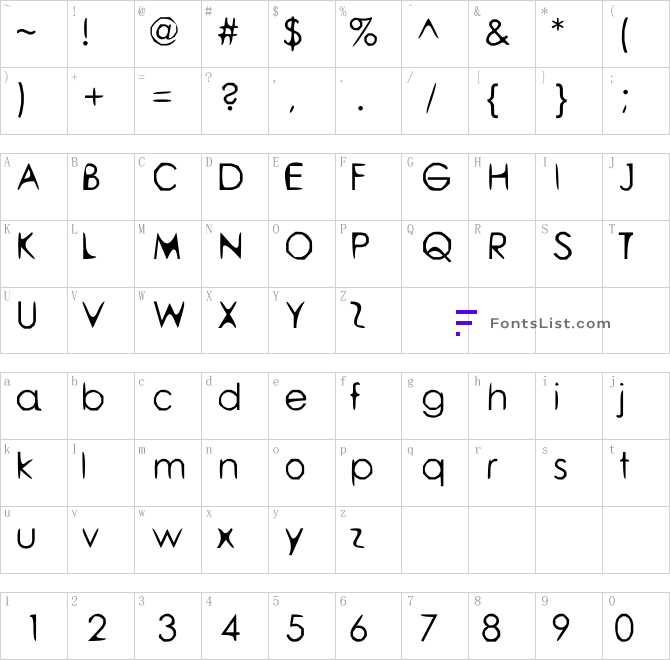
- Font Name:BDP GeLLY NameScript
BDP-GeLLY-NameScript.ttf is a very beautiful artistic font, BDP-GeLLY-NameScript.ttf is widely used in the design and printing of various books and pictures,BDP-GeLLY-NameScript.ttf has a strong visual impact,BDP-GeLLY-NameScript.ttf is a commonly used font in newspapers, magazines and books, and is used in posters, e-commerce Poster design, store design, logo design, font design and other fields.BDP-GeLLY-NameScript.